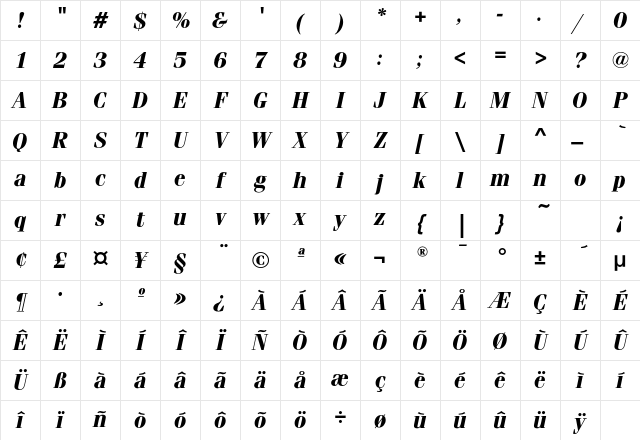
FeniceEF-BoldItalic Regular Free Font
Design Context for FeniceEF-BoldItalic
FeniceEF-BoldItalic is a composed and adaptable typeface that performs quietly and consistently across a wide range of design contexts. The slanted form adds forward momentum and visual energy. Its bold stroke weight gives it real presence on the page.
Pro Tip: Use FeniceEF-BoldItalic for emphasis, pull quotes, and subheadings where its slanted energy can add rhythm to the layout.